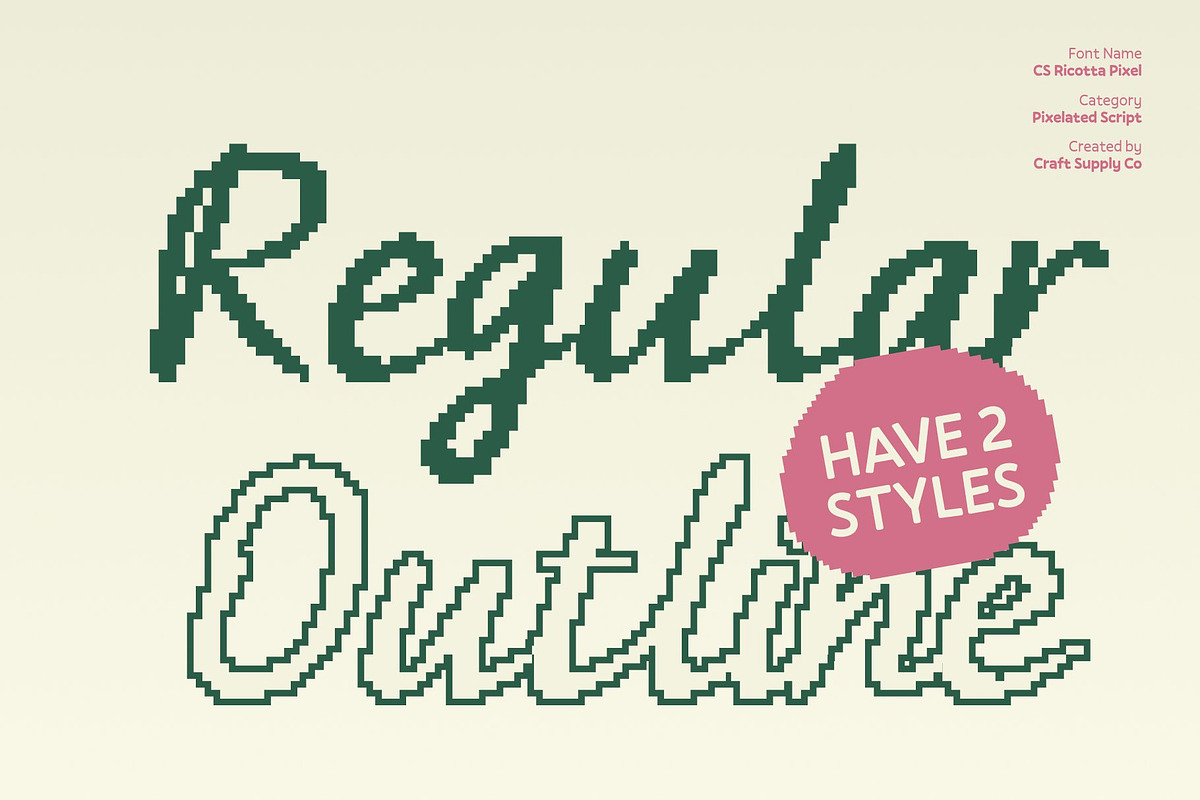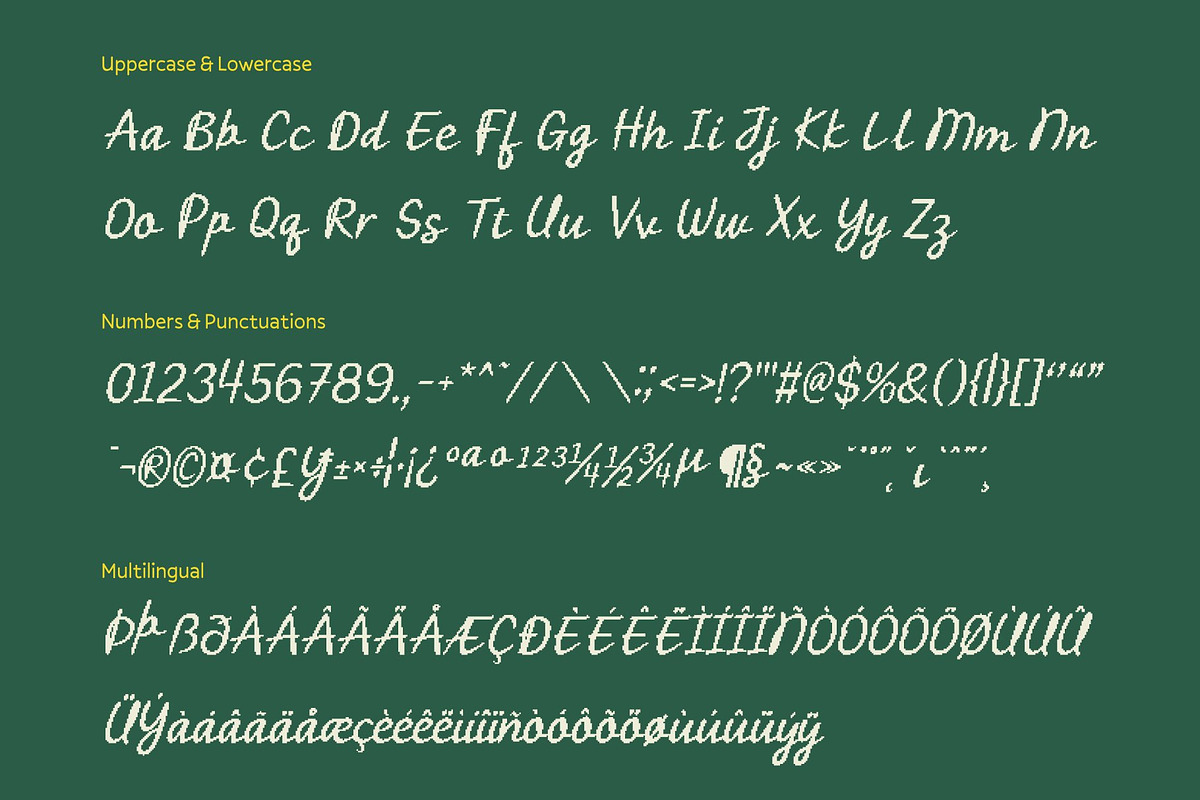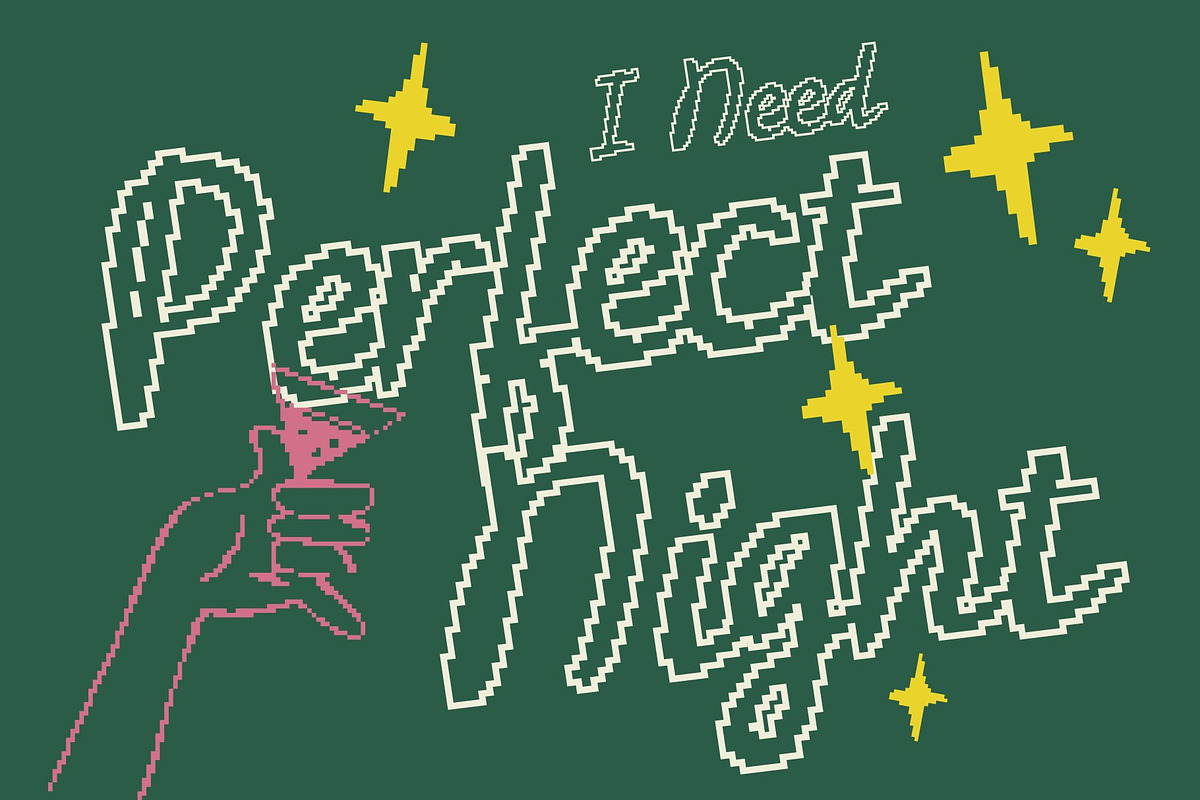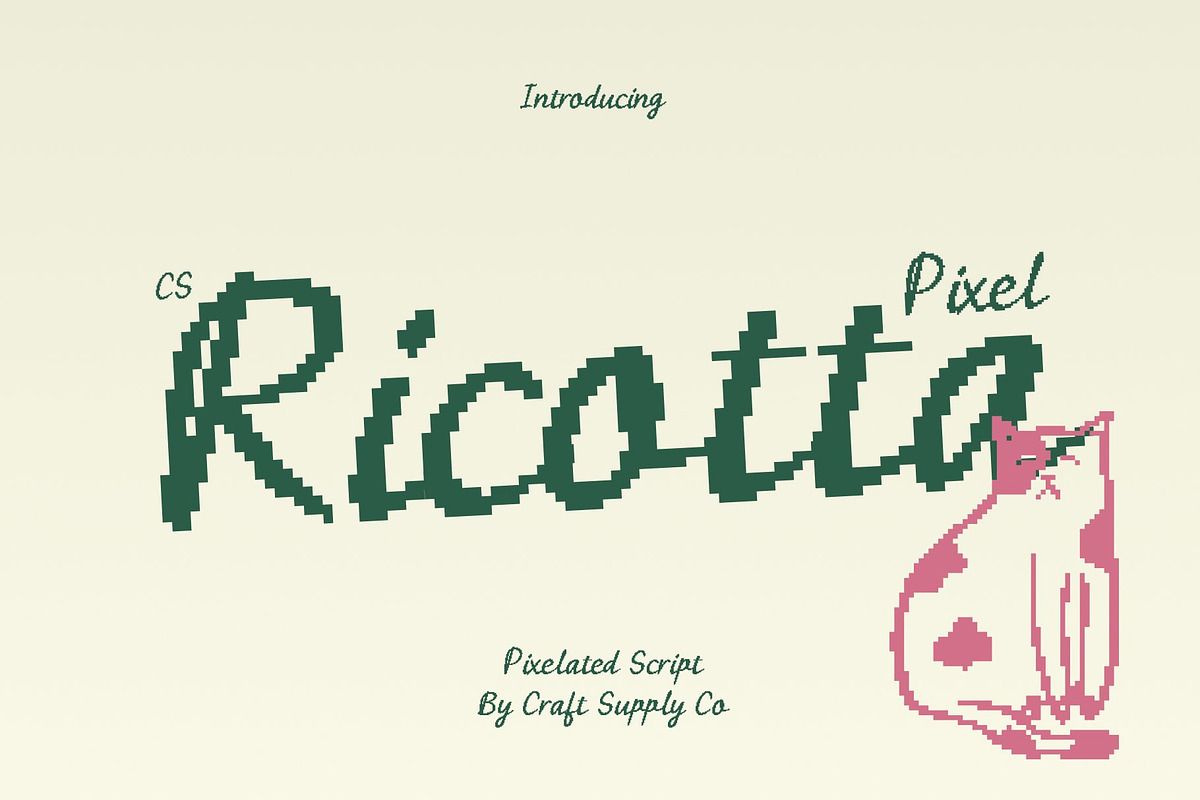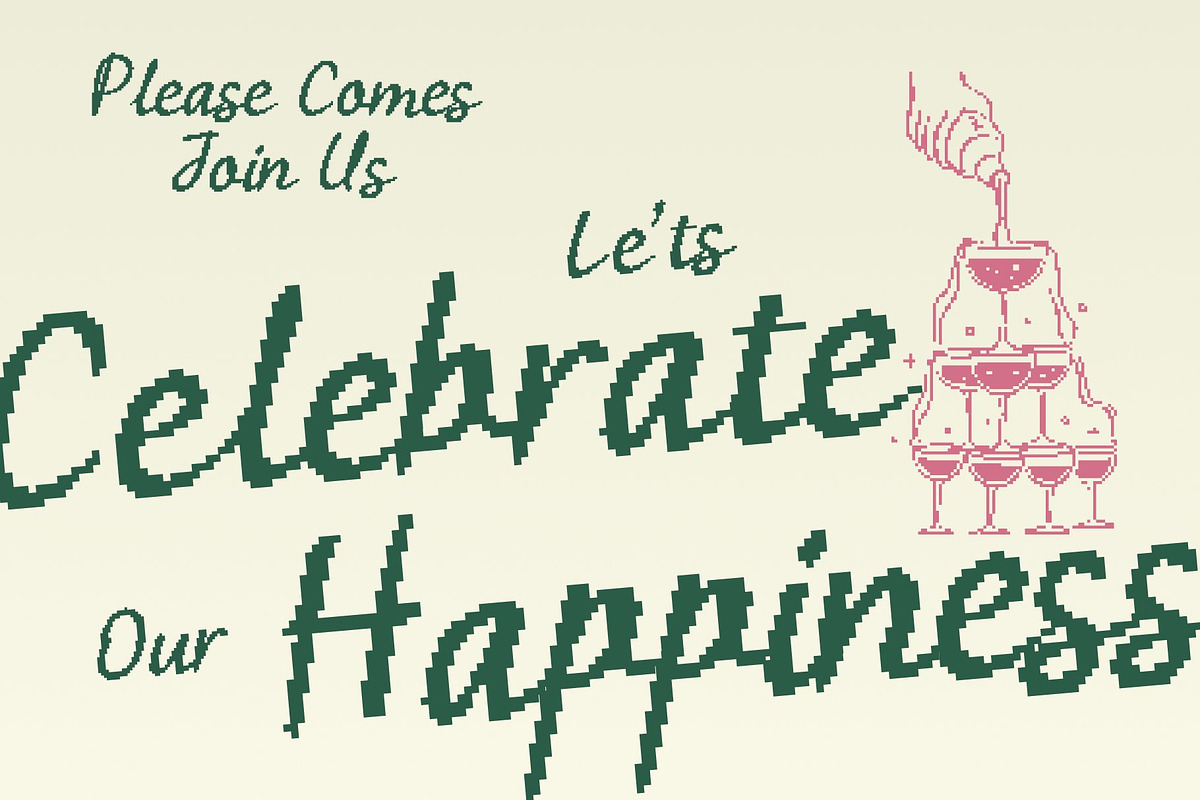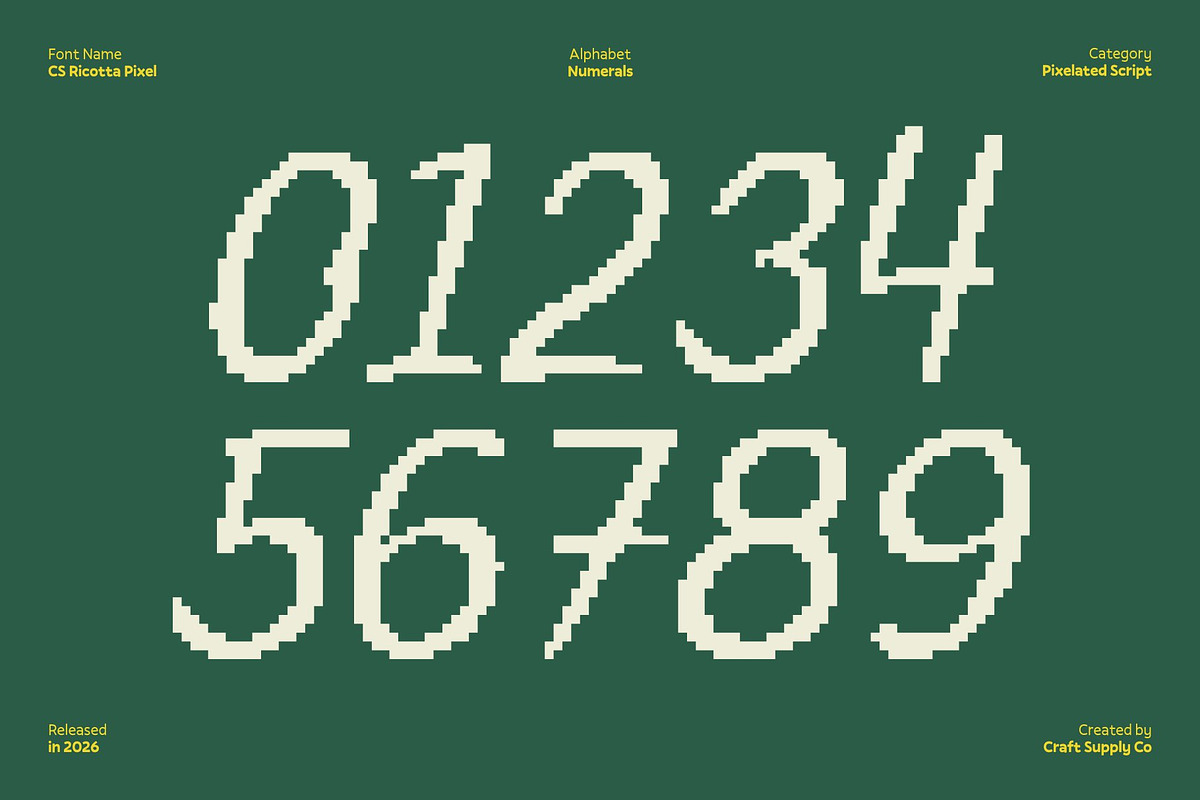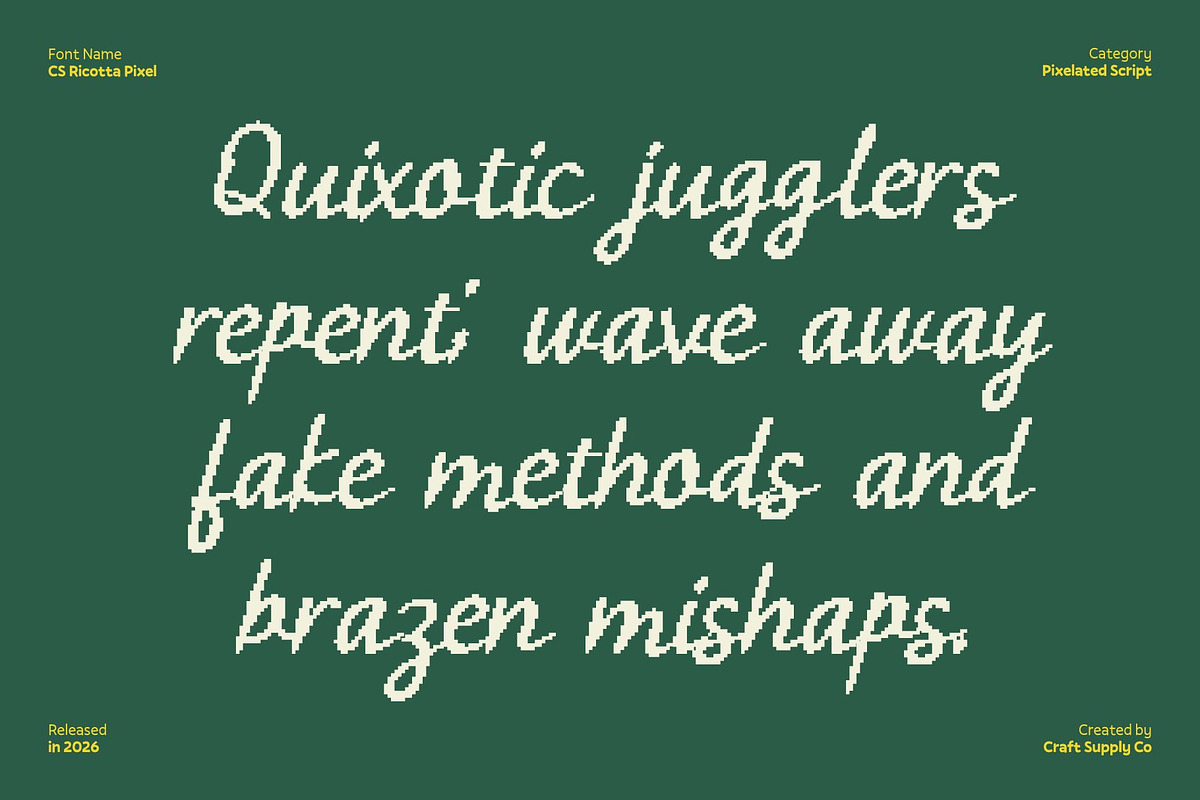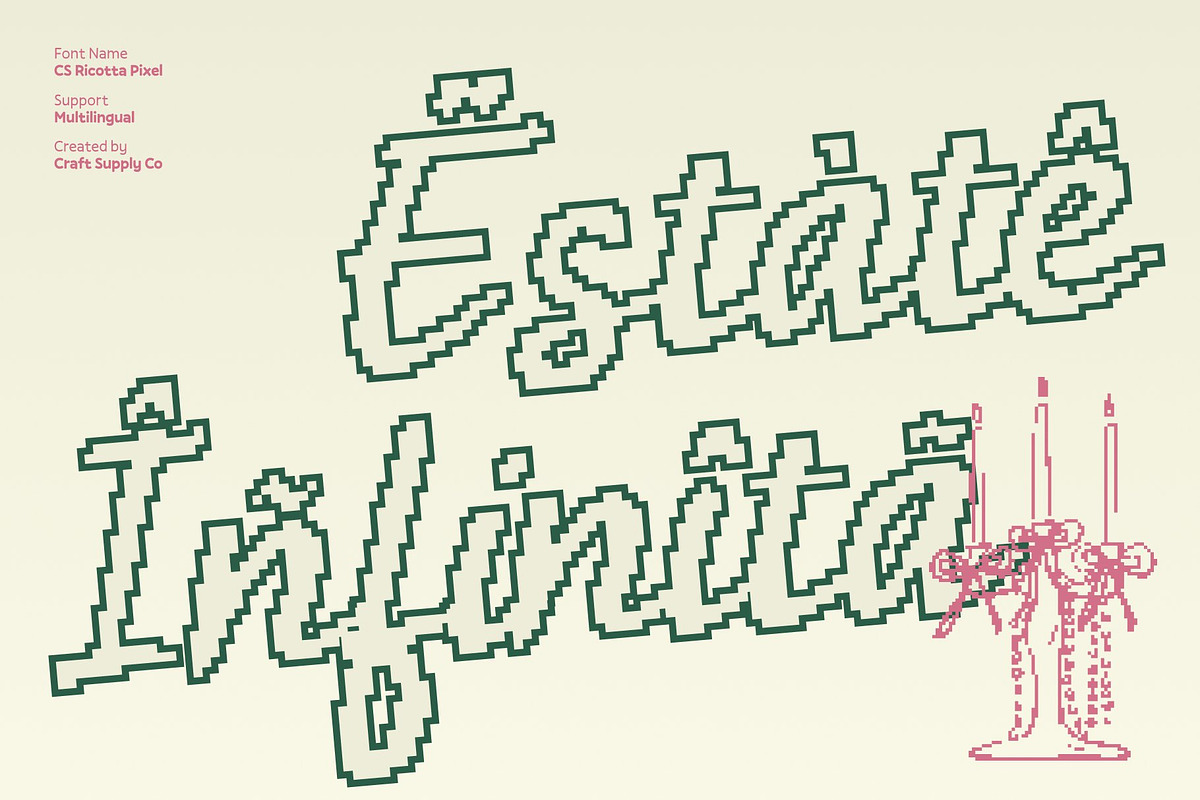
CS Ricotta Pixel
CS Ricotta Pixel – Handwritten Script Font with Romantic Curves
Romantic Script with Pixel-Inspired Charm This is a handwritten script font that blends flowing romance with a subtle pixel-digital character. Its graceful curves and hand-drawn strokes preserve the beauty of natural handwriting, while pixel-inspired construction gives it a unique retro-digital edge. The result is a script that feels soft, expressive, and visually distinctive in modern digital spaces.
Elegant Flow with Feminine Expression This font carries a gentle, romantic rhythm that brings warmth and emotion to every letter. Its smooth connections and delicate curves create a feminine and graceful appearance, while the pixel touch adds character and originality. This font feels personal and heartfelt, making it ideal for designs that communicate intimacy and charm.
Perfect for Weddings, Fashion, and Digital Creativity This font shines in wedding invitations, love-themed designs, greeting cards, and feminine branding. It also works beautifully in fashion logos, boutique branding, social media graphics, and digital visuals where romance meets modern technology. The pixel nuance makes it especially eye-catching on screens and creative digital layouts.
Handwritten Elegance with a Retro-Digital Twist More than a traditional script, this font stands out through its fusion of hand-drawn elegance and nostalgic pixel style. This combination ensures your typography feels expressive, memorable, and unique bridging classic romance with old-school digital charm. It’s the perfect choice when you want elegance that feels both emotional and visually modern.